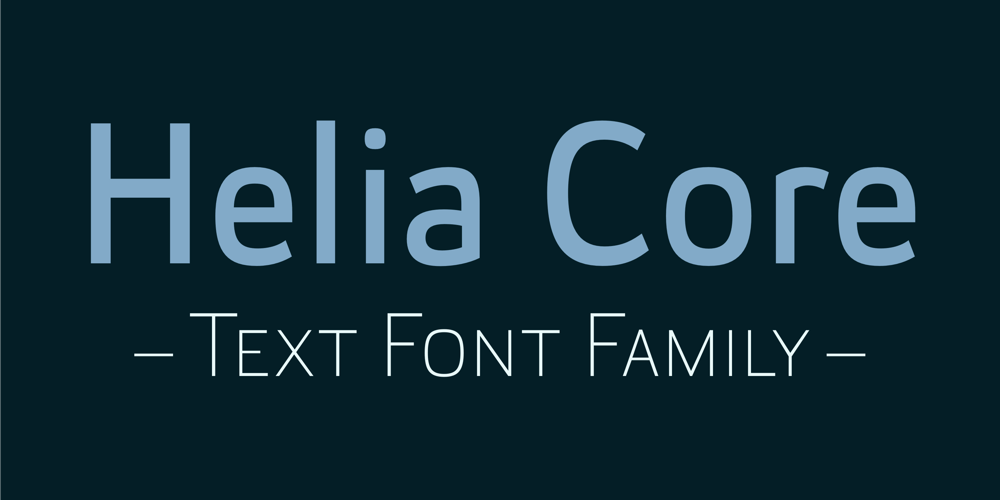
Helia Core Font Family was designed by Nico Inosanto and published by Nootype. Helia Core contains 16 styles and family package options. Helia Core is a semi-squared font with very low contrast. It was designed to be as clear as possible. This font has a soft and friendly aspect and is perfect for variety of use. Helia Core consists in a 16 styles family, from Hairline to Black with their italics. Each font includes Small Caps, OpenType Features such as Proportional Figure, Tabular Figures, Numerators, Superscript, Denominators, Scientific Inferiors, Subscript, Ordinals, Fractions and many ligatures. The ligatures are a good feature to make an original and creative layout. The fonts have an extended characters set to support Central, Eastern and Western European languages. The range of styles provides flexibility for text and title.